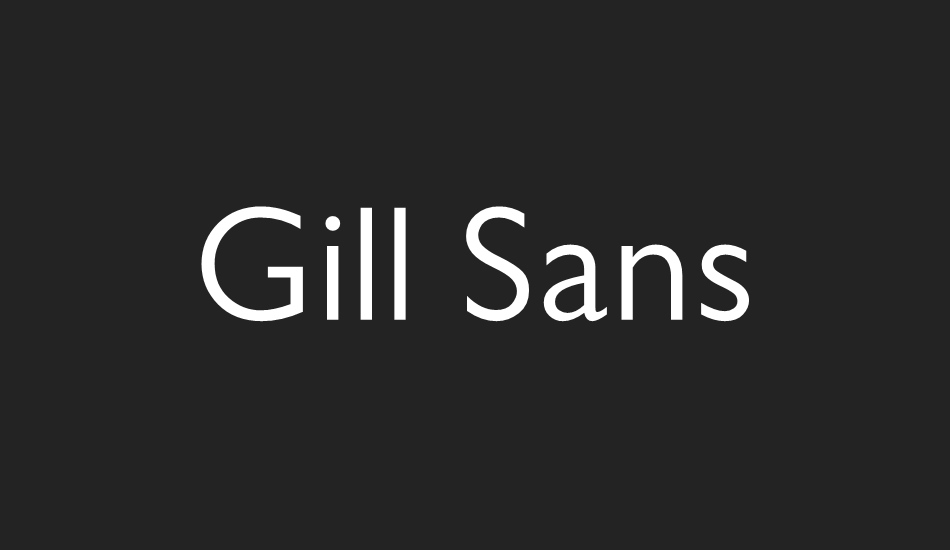
Gill sans mt regular font. The font gill sans is also perfect for branding projects, homeware designs.
Gill sans font download dafont. 39,501 downloads (3,086 yesterday) free for personal use. Gills alphabet is a humanist sans serif. The 10 most popular fonts right now.
The british branch of monotype in 1928 released gill sans fonts designed by arthur eric rowton gill. Is there any font similar to gill sans in google fonts? Please, talk with the author for commercial use or for any support.
This humanistic sans serif font family is ideal for many textual relating approaches. Toy story andy font dafont. The 10 most popular fonts right now.
The roots of gill sans can be traced to the typeface that gill's teacher, edward johnston, designed for the signage of the london underground railway in 1918. Gill sans font free download finn wittrock · leave a comment introducing gill sans font that is a geometric sans serif typeface having a humanist texture which was developed by eric gill. If you want to create professional printout, you should consider a commercial font.
He was an english sculptor, typeface. 103,759 downloads (304 yesterday) free for personal use. Check it for free with typograph.
The font is paid when you are going to use it for your commercial purpose. Princess and the frog cricut projects princess tiana disney fonts the story part was probably designed using the font gill sans bold which is a commercial font. Gill sans mt w01 light italic.
705926 downloads 18 yesterday 9 comments 100 free. What type of font is gill sans? The successful gill sans typeface was designed by the english artist and type designer eric gill and originally issued by monotype in 1928 to 1930.
You can use the gill sans mt to create interesting designs, covers, shop and store name and logos. A tremendous sign in the field of typography. About the font gill sans.